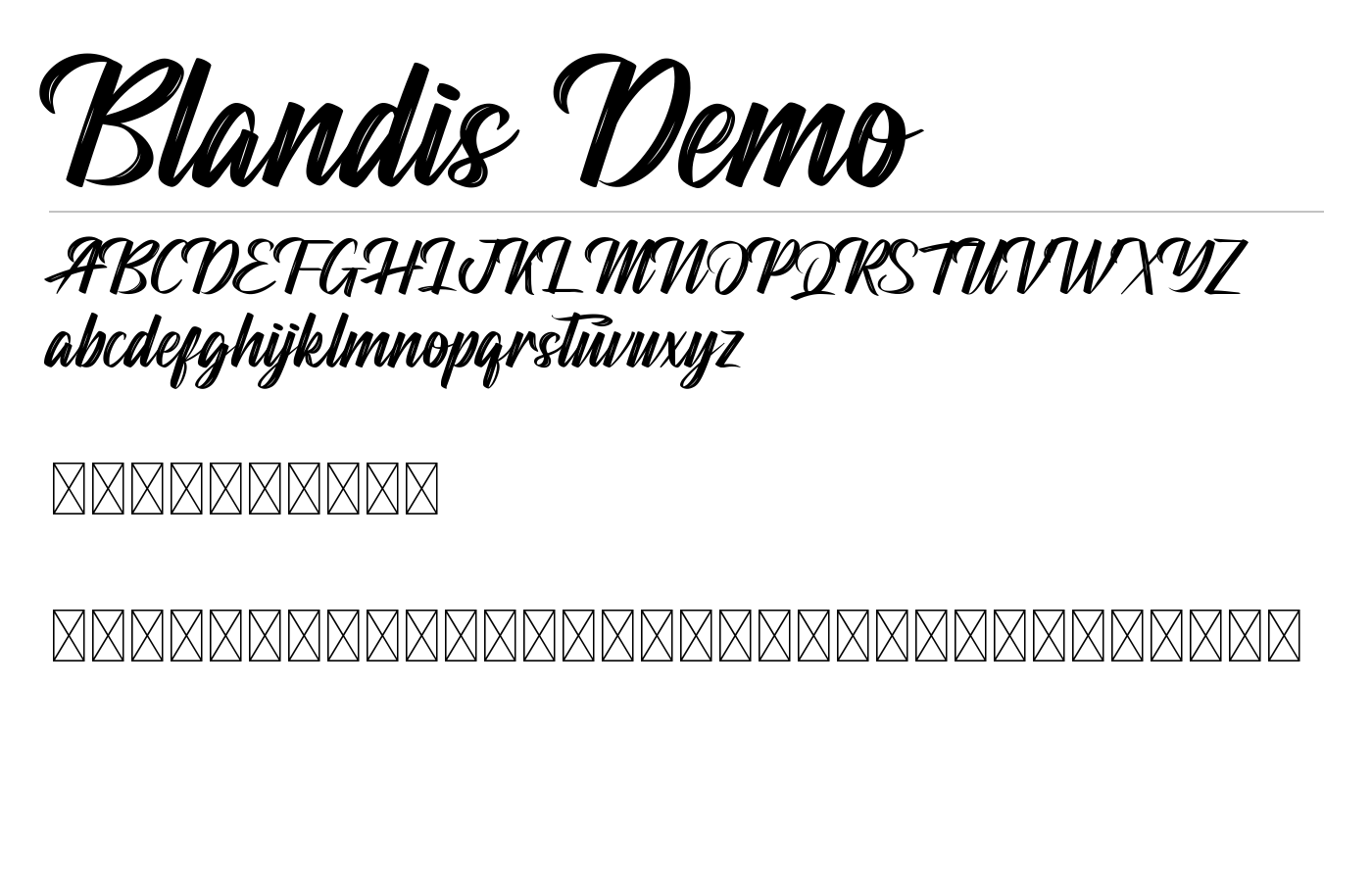
Blandis Demo is a bold, modern script font with smooth, flowing strokes that give it an elegant yet energetic feel. Its high contrast between thick and thin lines, combined with unique letterforms and a natural handwritten style, makes it perfect for branding, logos, and eye-catching headlines where a stylish and personal touch is desired. This font works well in creative, fashion, or lifestyle projects that seek to convey sophistication with a contemporary flair.
Blandis Demo Font
About Blandis Demo Font
| Font family | Blandis Demo Font |